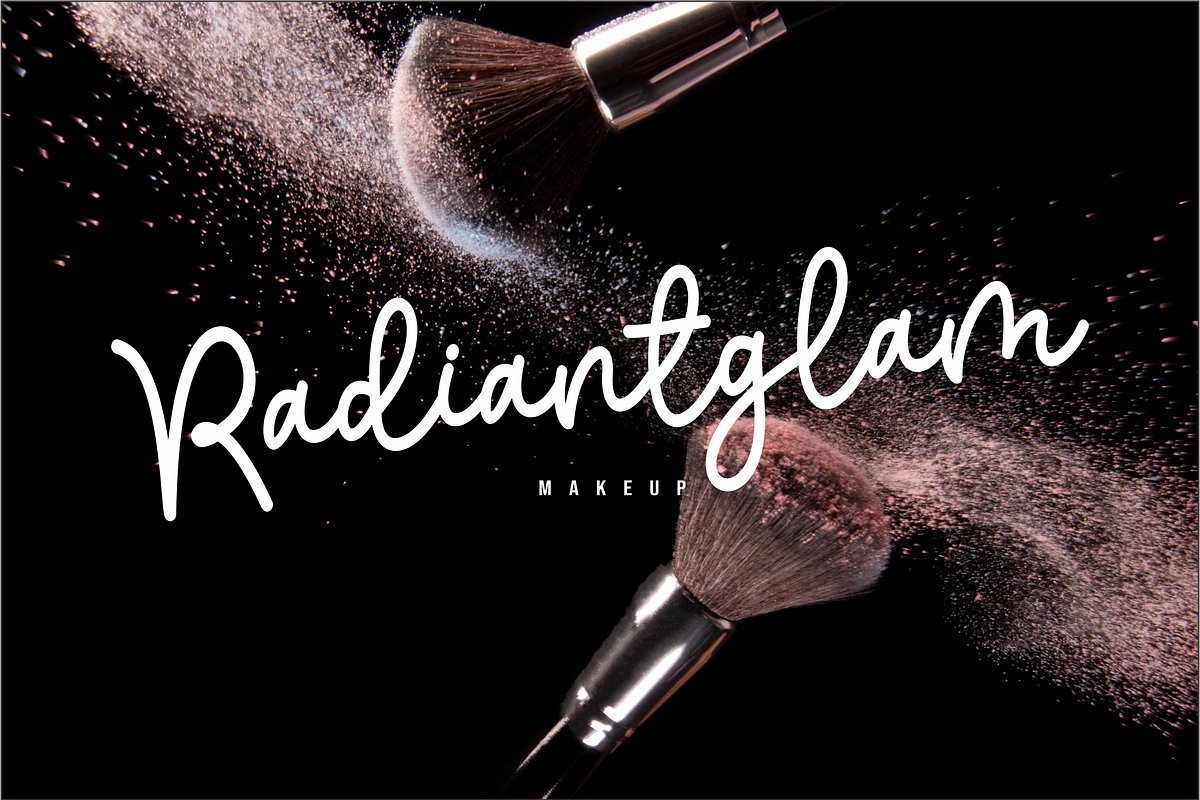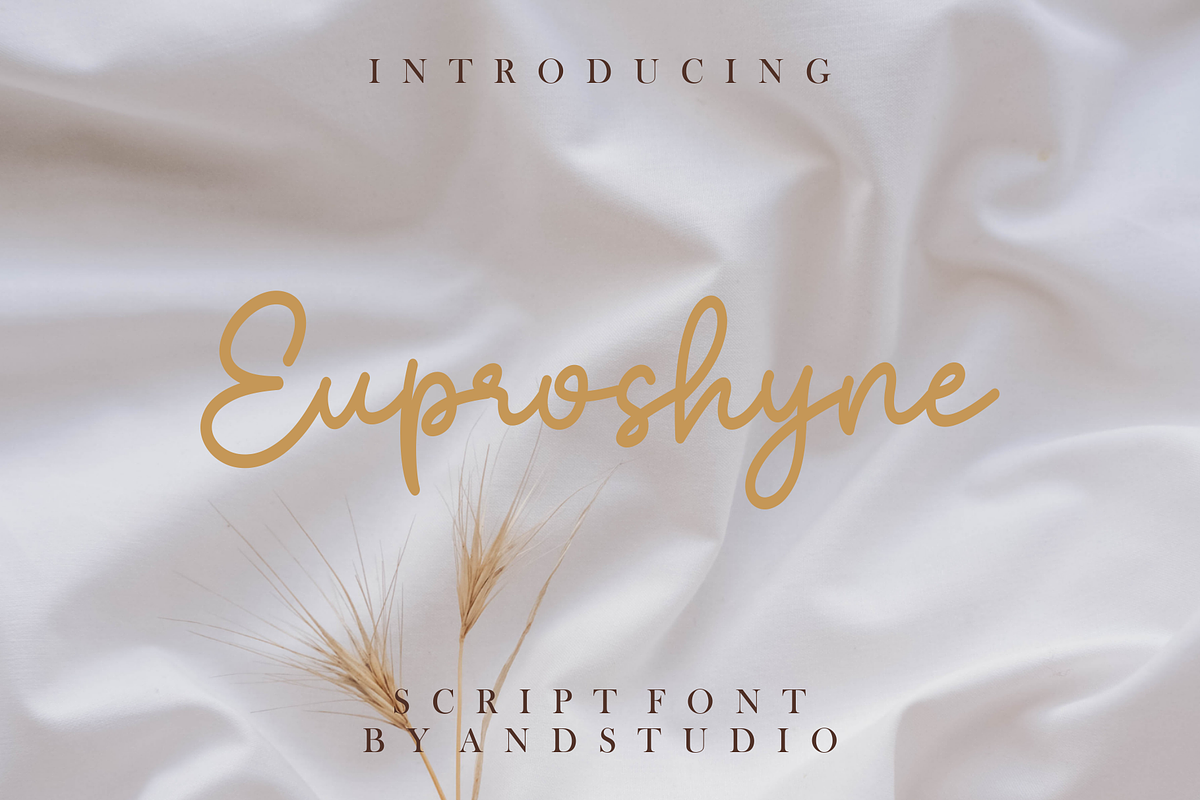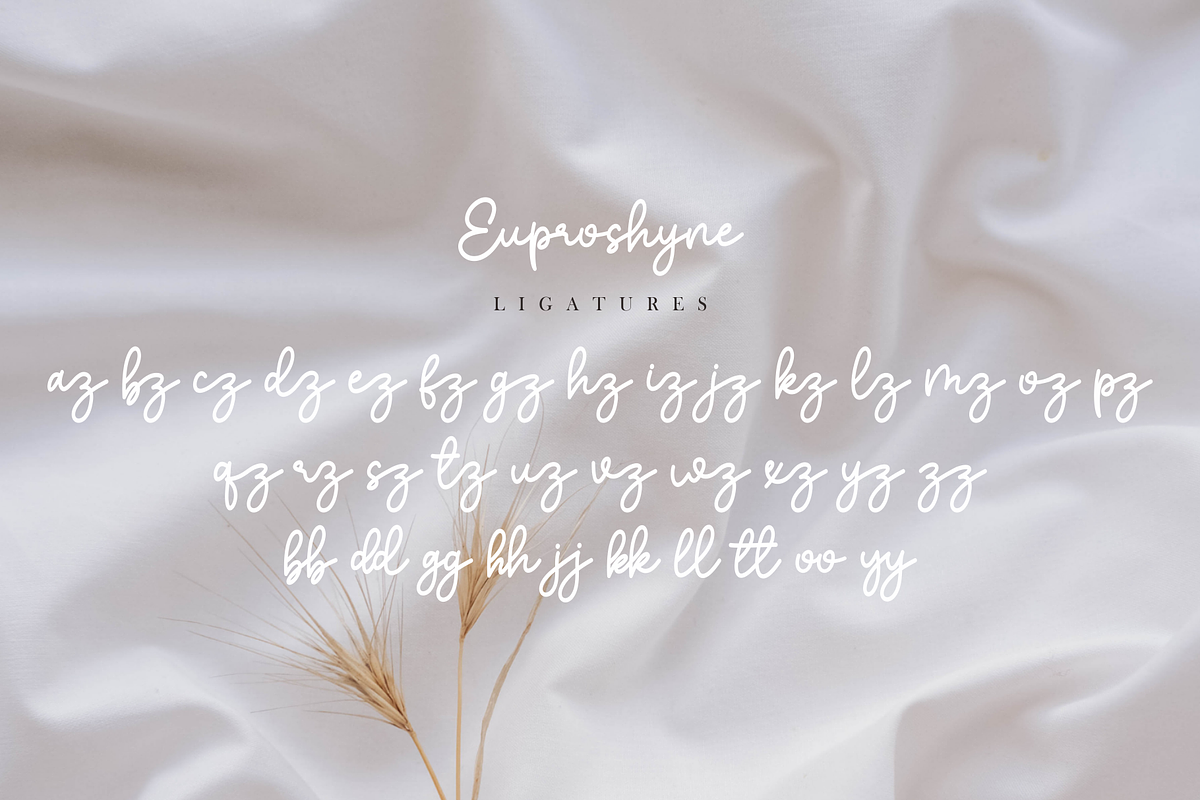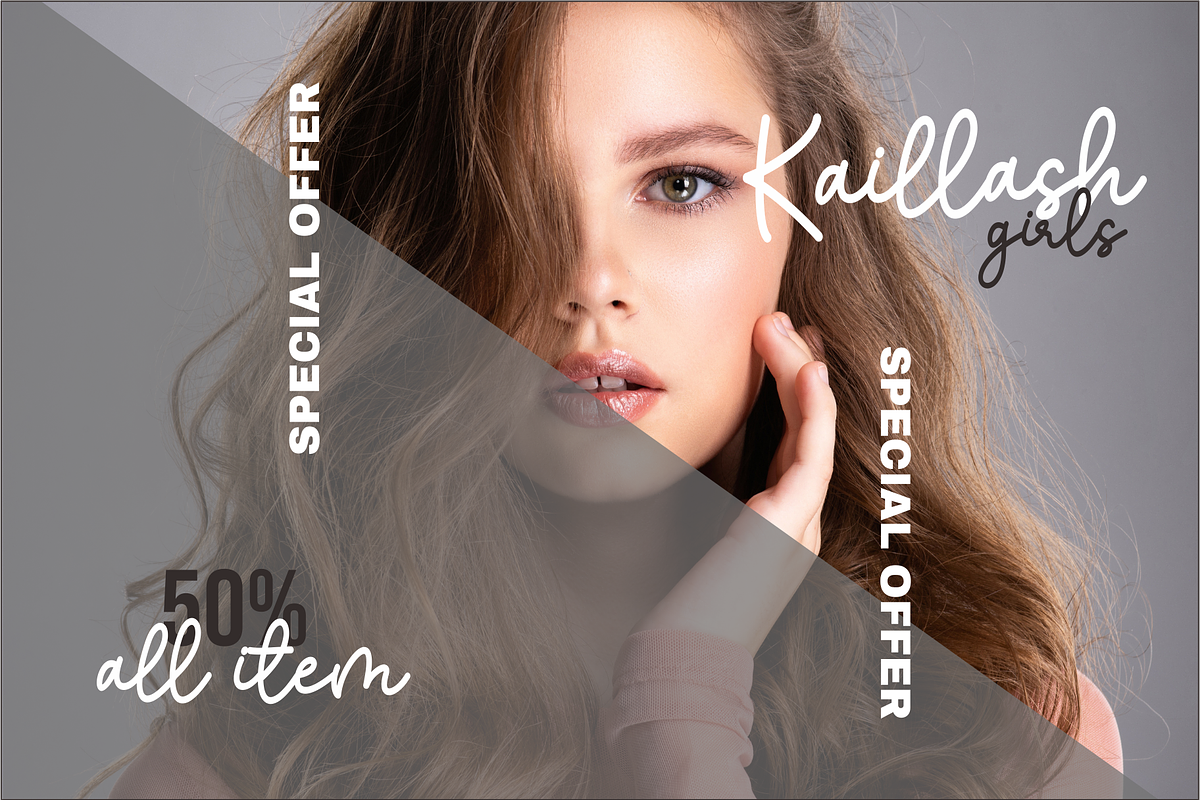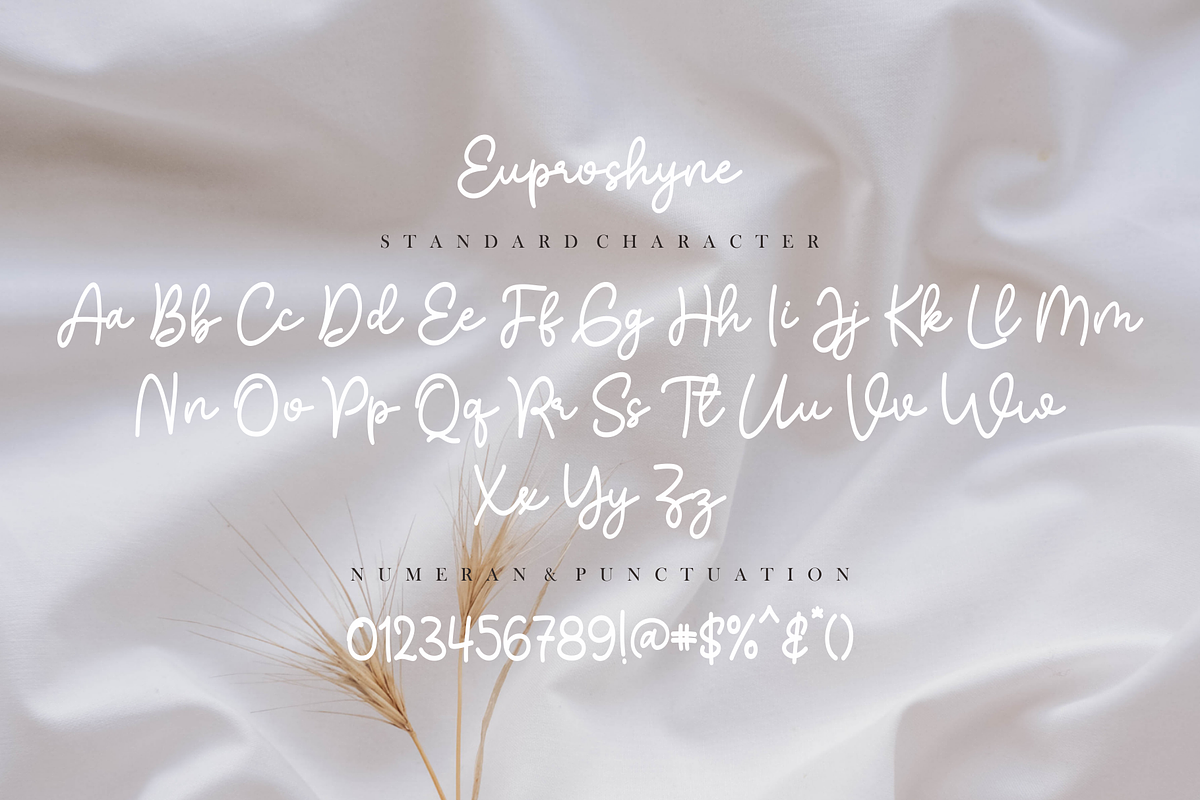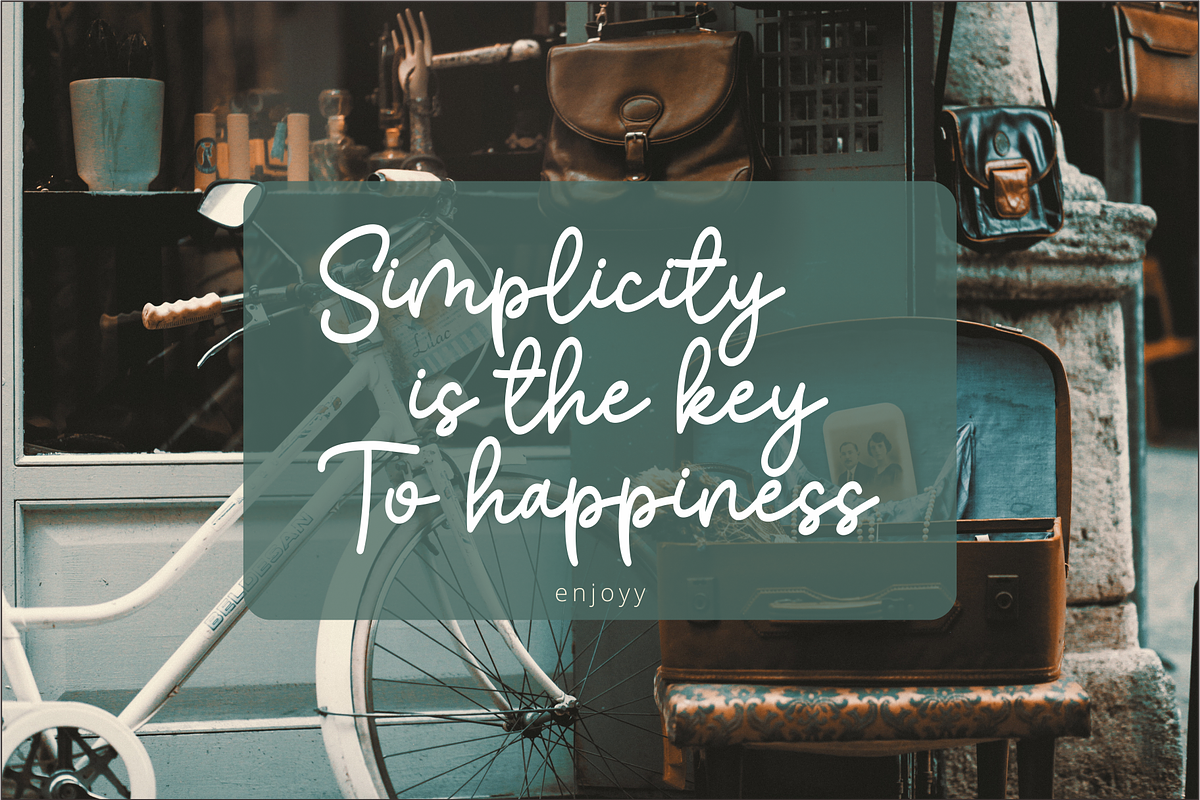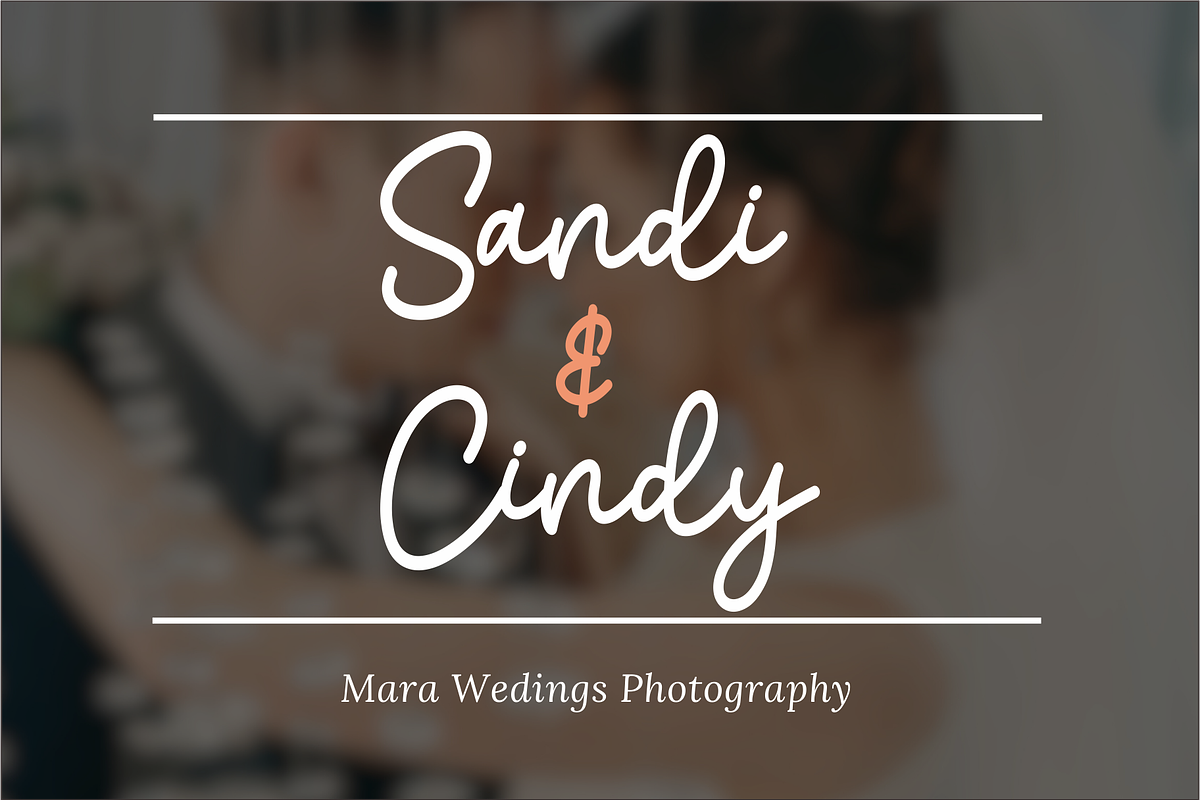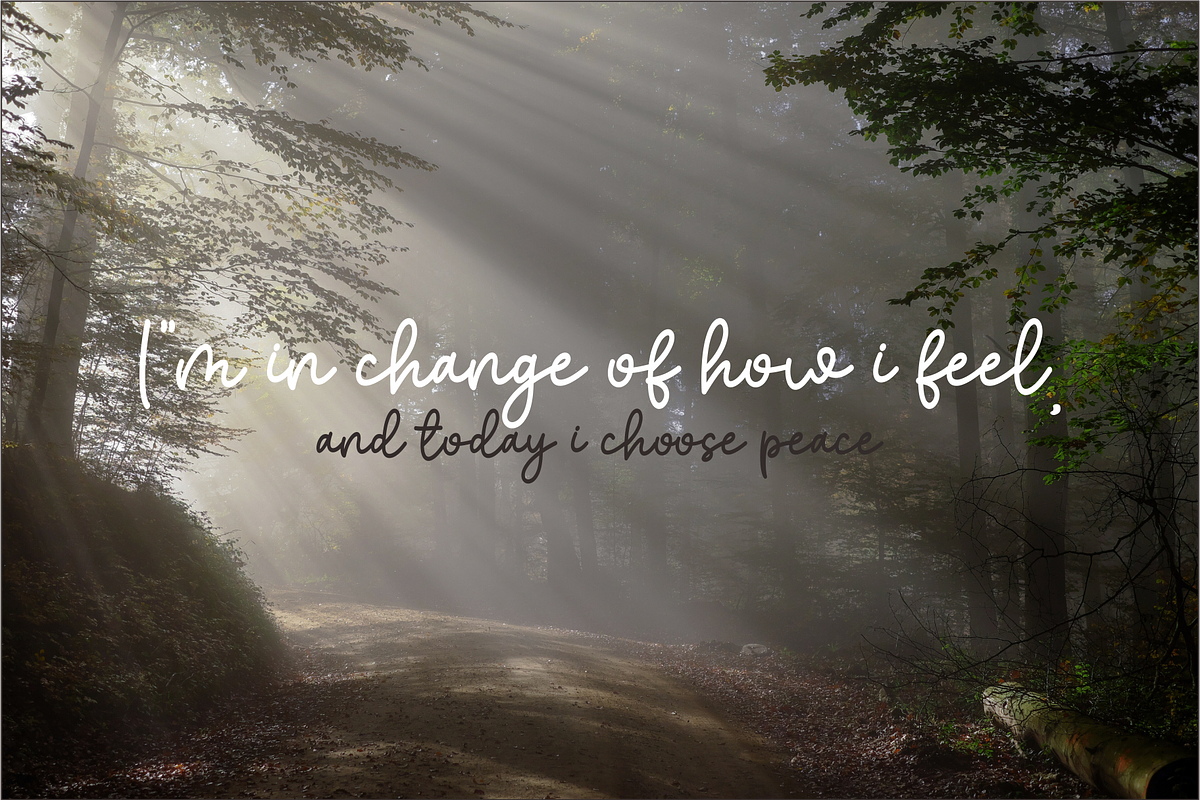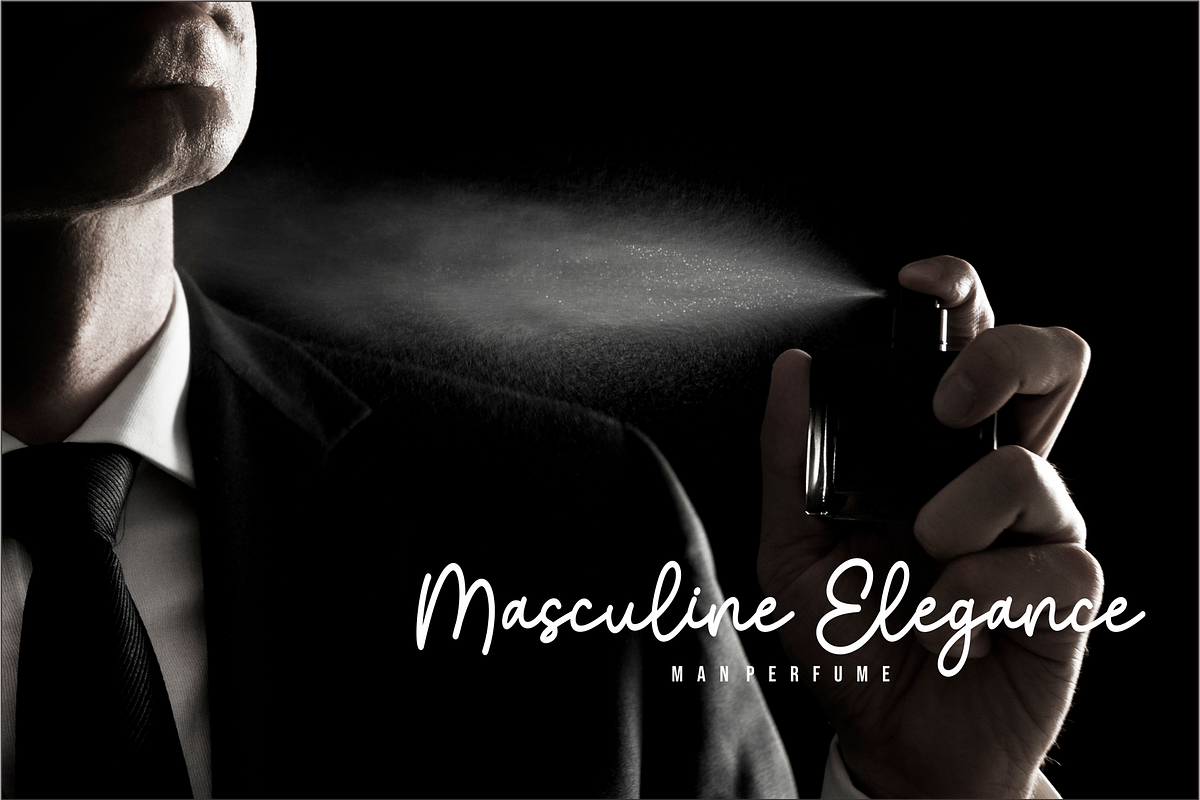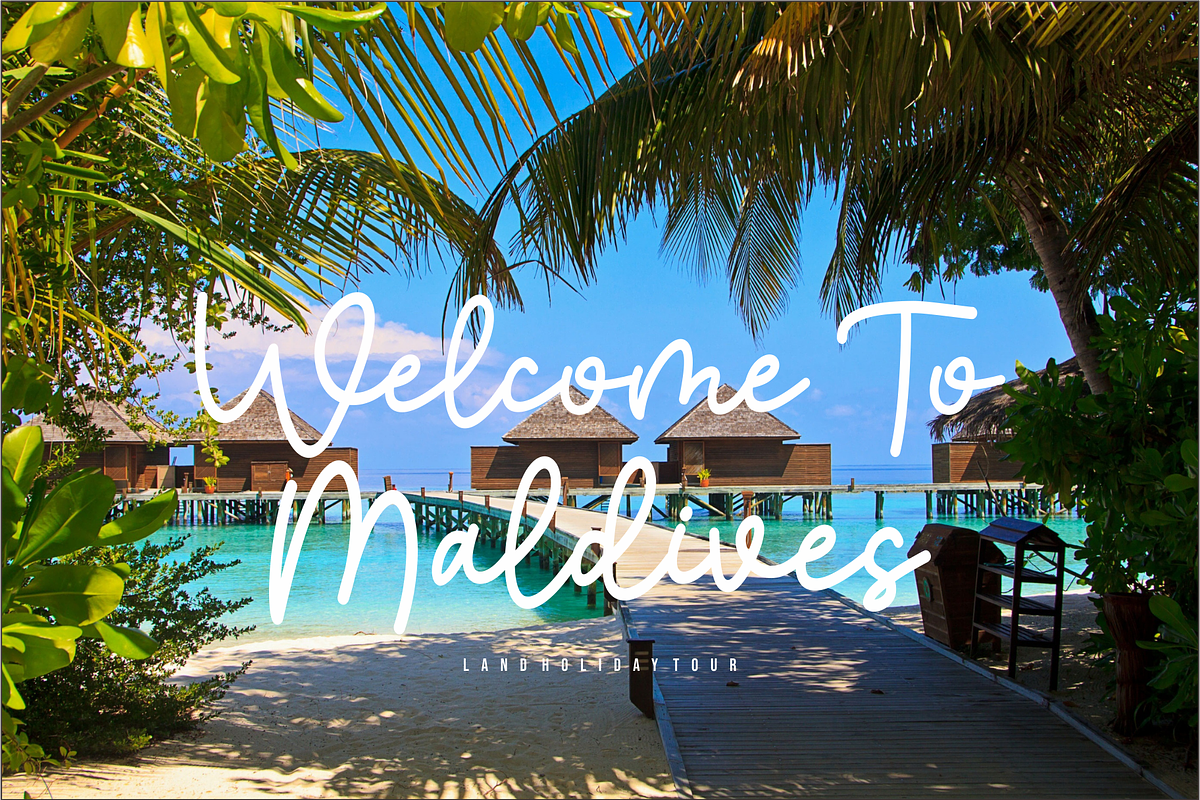
Euproshyne
Euproshyne Script is an enchanting handwritten font. This versatile script font has a wide spectrum of applications ranging from greeting cards to headlines and is guaranteed to add a romantic feel to your next project. This font is PUA encoded which means you can access all the glyphs and ligatures with ease